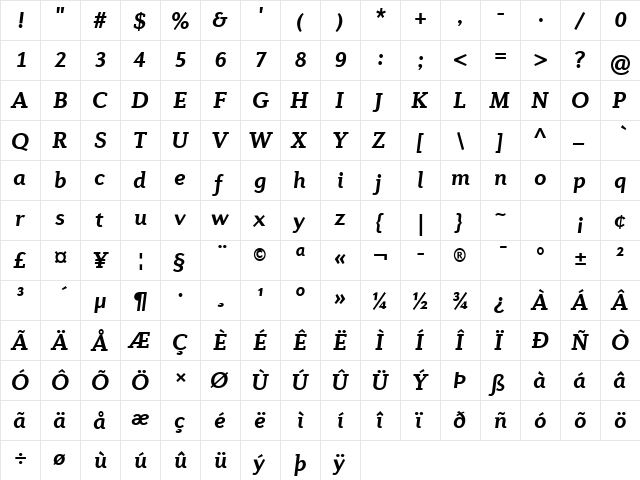
Diverda Serif Com Bold Italic
| Foundry | Linotype GmbH |
| Designer | Daniel Lanz |
Design Context for Diverda Serif Com Typeface
Diverda Serif Com brings classic typographic sensibility to the table — its serifs and measured letterforms reflect centuries of print heritage. Its italic angle brings a sense of urgency and motion to the letterforms. The heavy weight commands attention and anchors typographic hierarchies.
Pro Tip: Set Diverda Serif Com with slightly loose tracking in headlines to let each letterform's detail read clearly at display sizes.